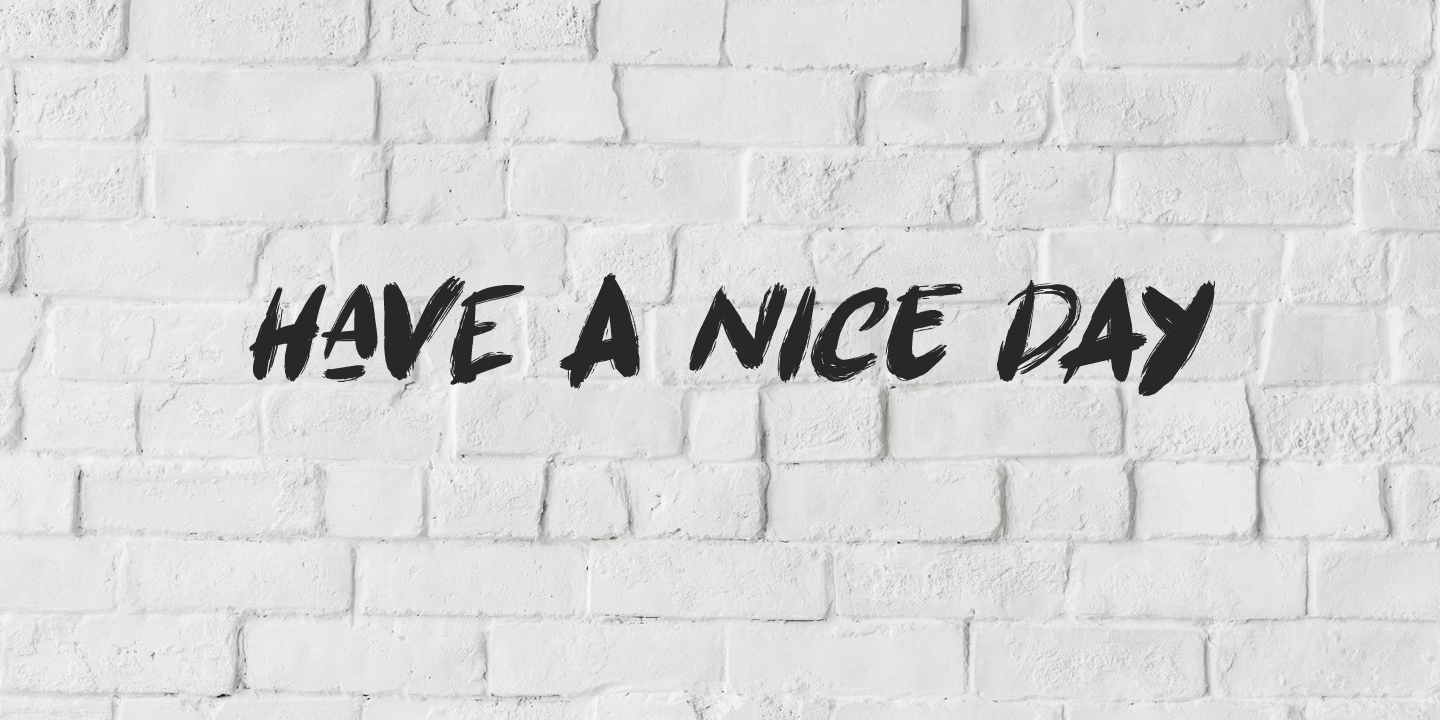
Brushcrazy Font is perfect for artistic poster designs, creative agency branding, street art inspired graphics, expressive painting workshops, bold advertising campaigns, graffiti-style merchandise, artistic event promotions, creative studio signage, unconventional product packaging, and rebellious lifestyle brands that require wild typography with artistic energy and uninhibited creative expression.
What makes Brushcrazy Font so exciting is its explosive celebration of artistic freedom through dramatically expressive brushstroke letterforms that capture the raw energy and spontaneous creativity of street art and abstract painting. This font features wild, organic character shapes with authentic paint texture variations that create an unmistakable sense of artistic rebellion and creative passion. The uninhibited design approach embraces imperfection and spontaneity, making it perfect for brands that want to project artistic authenticity and creative boldness.
The Brushcrazy Font family includes multiple weights and styles: Light, Regular, Bold, Extra Bold, Splatter, and distressed variants with varying paint textures. Each weight maintains the signature crazy brush character while offering comprehensive flexibility for artistic design applications and expressive typographic statements.
Creative artists consistently choose Brushcrazy Font Free Download for projects requiring authentic artistic typography that embodies the spirit of creative rebellion and expressive freedom. Whether you're developing art gallery branding, creating street art inspired campaigns, designing creative workshop materials, or crafting bold artistic publications, this font delivers exceptional artistic energy and visual excitement. The font's comprehensive character set includes artistic symbols and paint-inspired alternates while ensuring optimal impact across both digital and print artistic applications, making it an indispensable tool for designers working on creative projects that demand wild, expressive, and authentically artistic typography solutions with unbridled creative energy and rebellious artistic spirit.